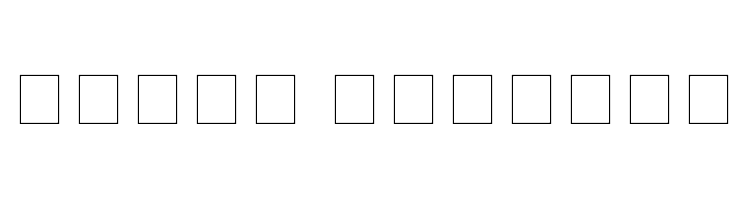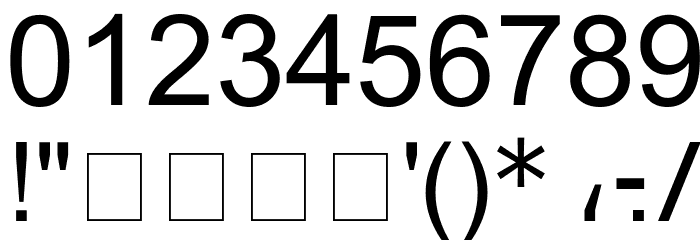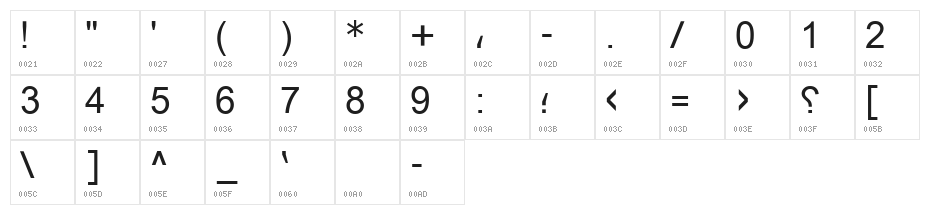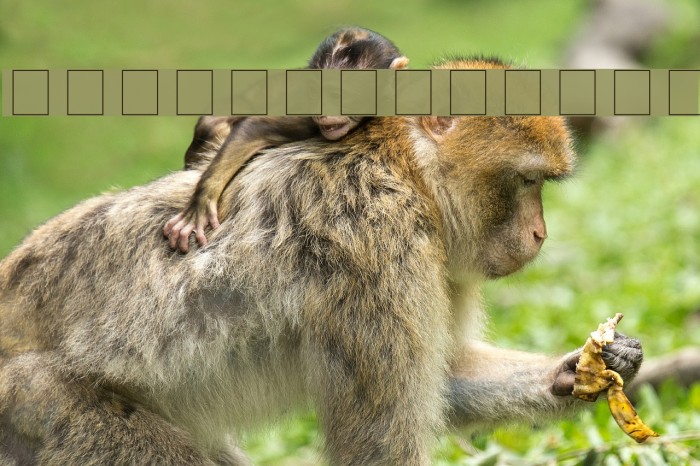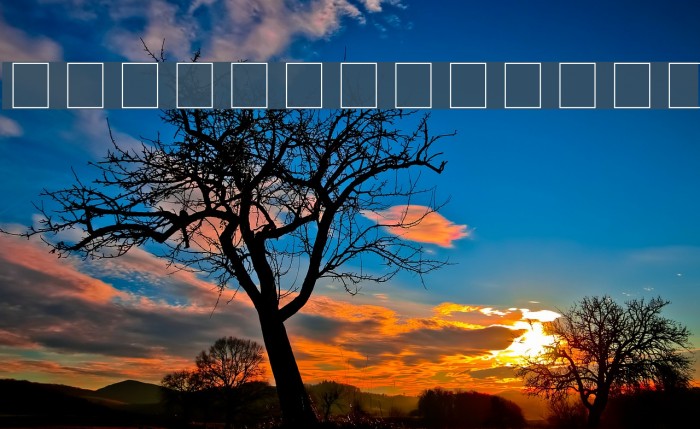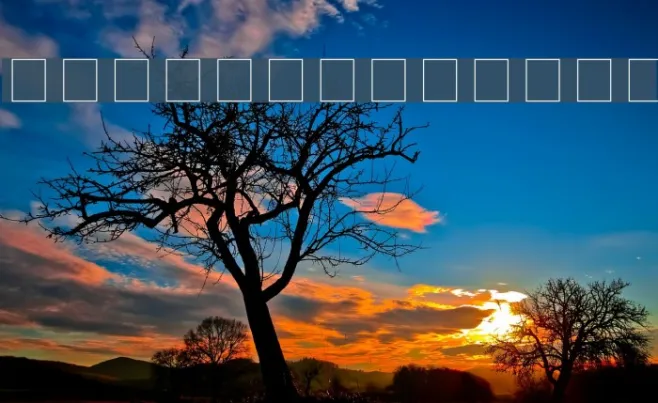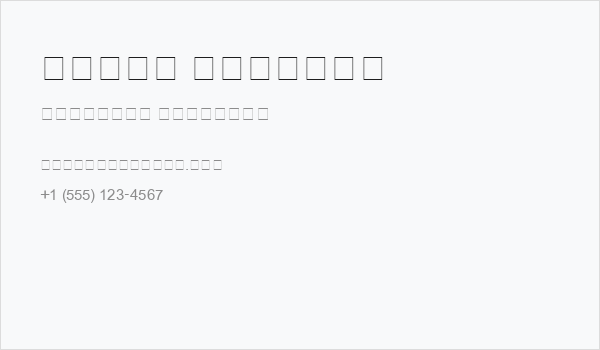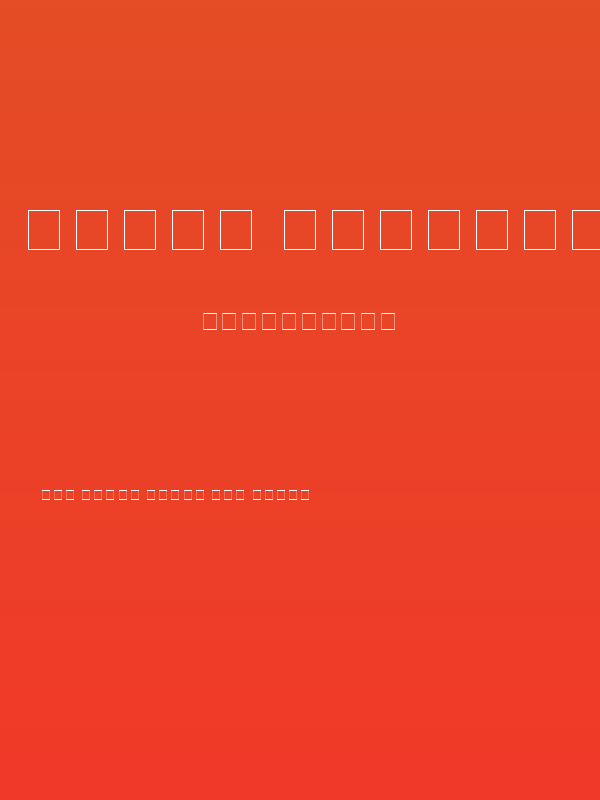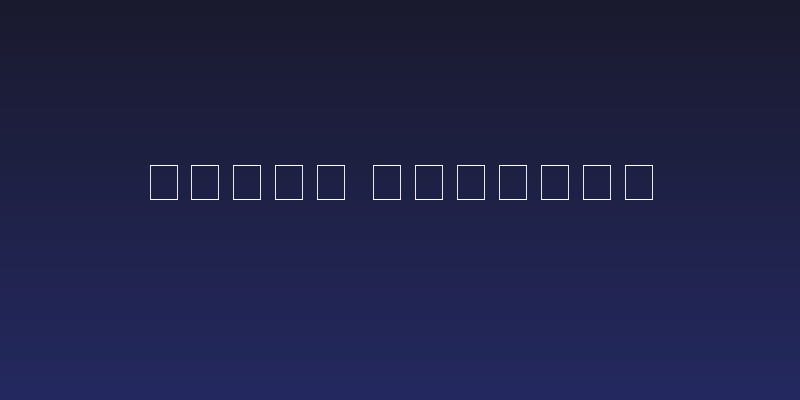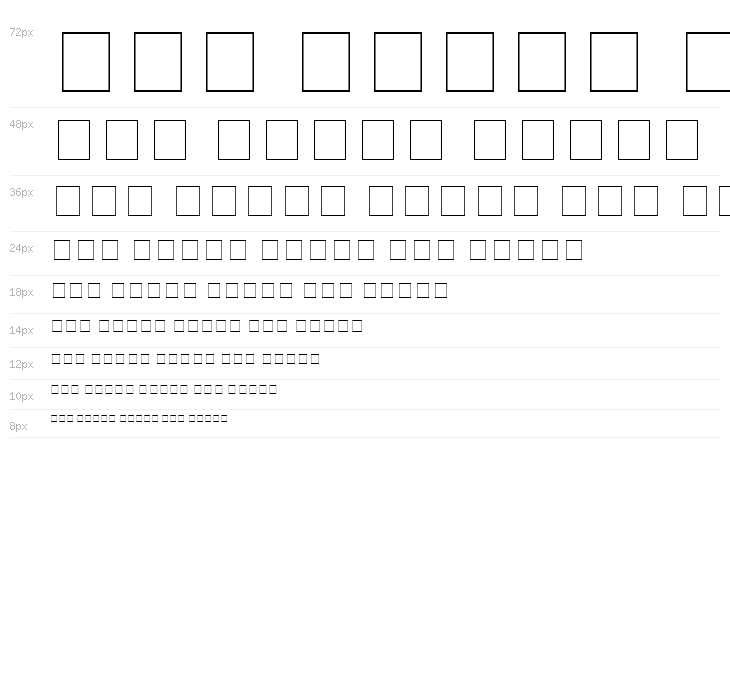
Orkun Regular Font
Orkun Regular Description
This font features a clean and modern design with smooth curves and a balanced structure. The numerals are bold and clear, making them highly legible. The special characters are well-defined and maintain the overall aesthetic of simplicity and clarity. The font's design is versatile, suitable for various digital and print applications. Its straightforward style ensures readability while maintaining a contemporary look, making it ideal for professional and casual use alike.
| Proposed Projects | Ideal for digital interfaces, print media, branding, and advertising materials. |